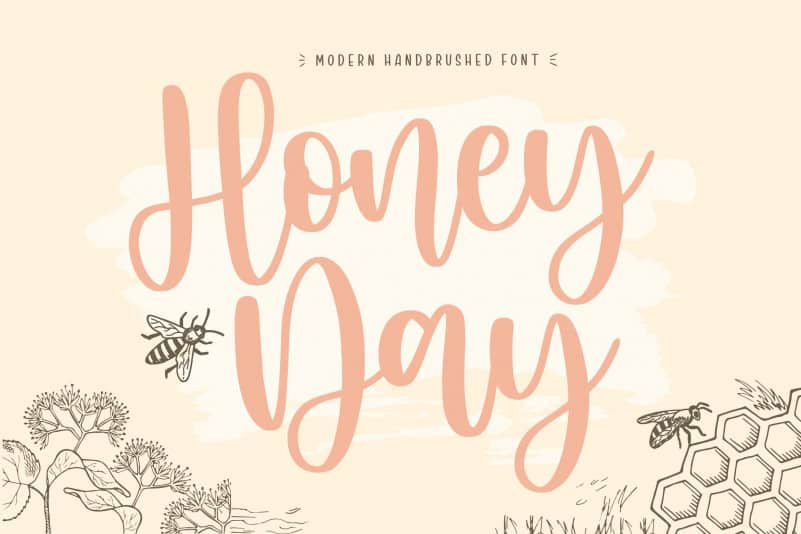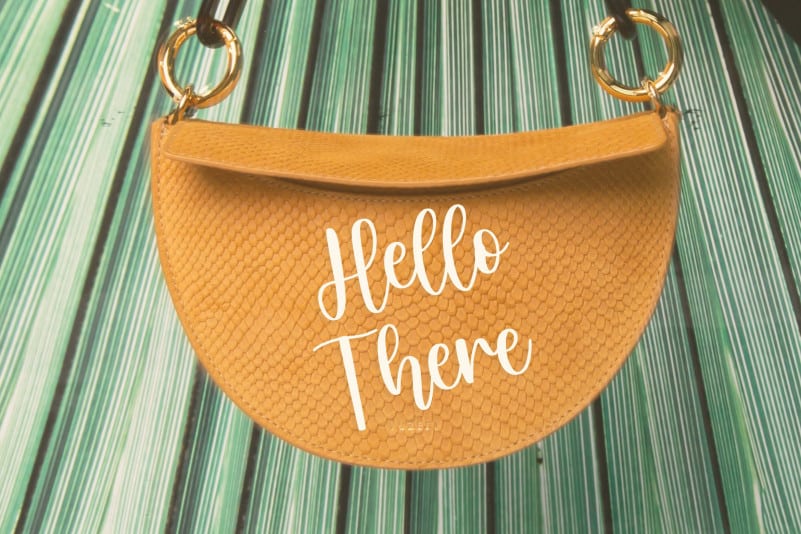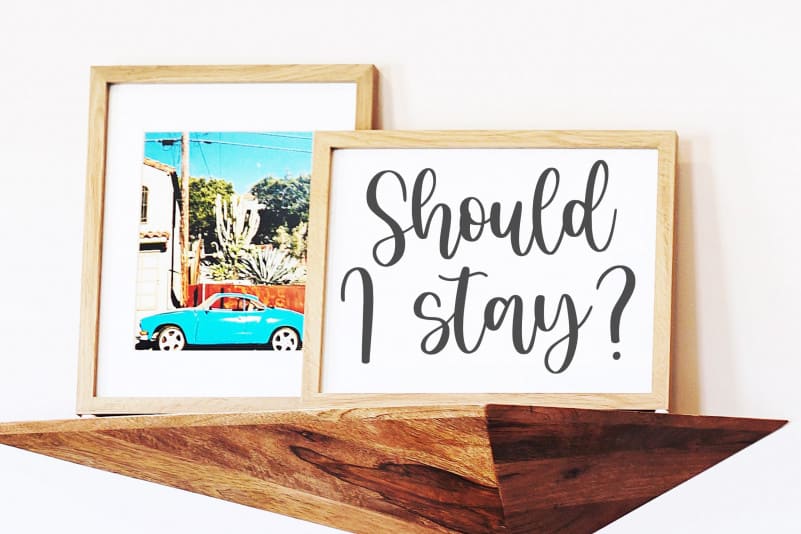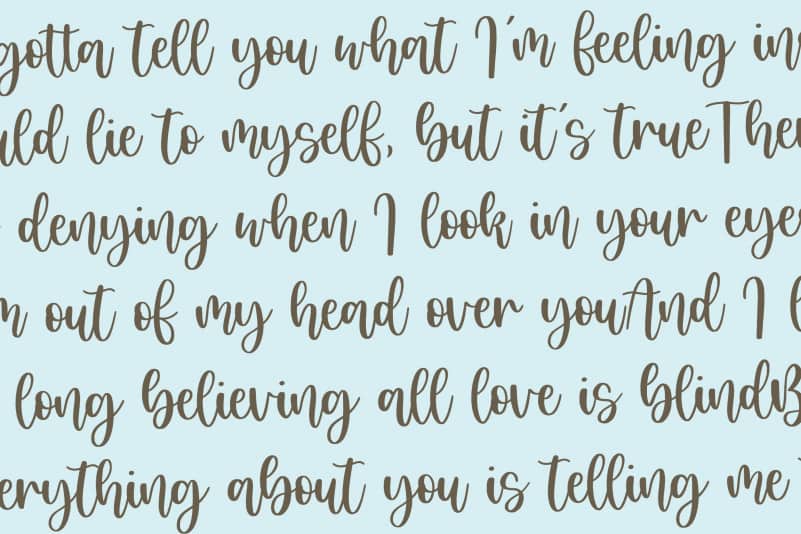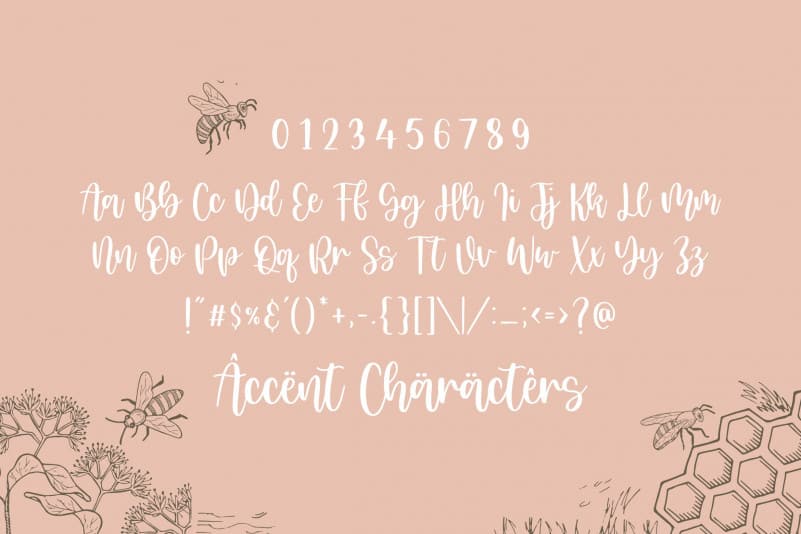
Honeyday Modern Handbrushed Font
Proudly Present, Honeyday Modern Handbrushed Font.
Honeyday is Modern Handbrushed font.
It is perfect for product packaging, branding project, megazine, social media, wedding, or just used to express words above the background.